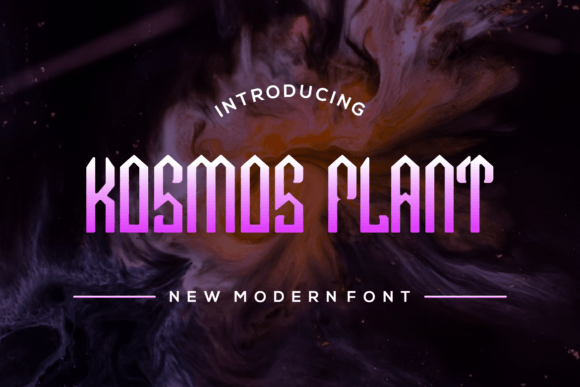
Unleash your creativity with Kosmos Plant, a stunning display font that will captivate your designs.
In a realm of ordinary fonts, Kosmos Plant emerges as an extraordinary beacon of inspiration. Its sleek, modern contours exude an aura of sophistication, while its playful nature invites you to infuse your projects with a touch of whimsy.
Crafted with meticulous care, this versatile font family adapts seamlessly to your every design vision. Whether you're crafting eye-catching headlines, captivating social media posts, or adding a personal touch to your creative endeavors, Kosmos Plant is your go-to font for making a statement.
Immerse yourself in the world of vinyl lettering and let Kosmos Plant transform your creations into works of art. Its crisp, clean lines ensure flawless cutting, making it the perfect choice for adding a touch of your own personality to everything from custom mugs to home décor.
Don't settle for ordinary fonts. Embrace the extraordinary with Kosmos Plant. Its captivating charm and versatility will ignite your creativity and elevate your designs to new heights.
Experience the magic of Kosmos Plant today and unlock a world of endless design possibilities.